Whether you need a logo or trendy flyers, these gym fonts will help you build a professional and powerful brand image.
High quality sans serif fonts
When it comes to professional branding and logo design, crisp sans serif fonts are definitely the way to go if you want to create a clean and modern brand image. A sans serif is usually the best font for gym logo since it’s both professional and versatile.
This free gym font's geometric, bold lettering would make a perfect display font for signage and poster design across your fitness center. It comes in OTF and TTF format and many glyph alternatives that will allow you to incorporate it ideally into any design.
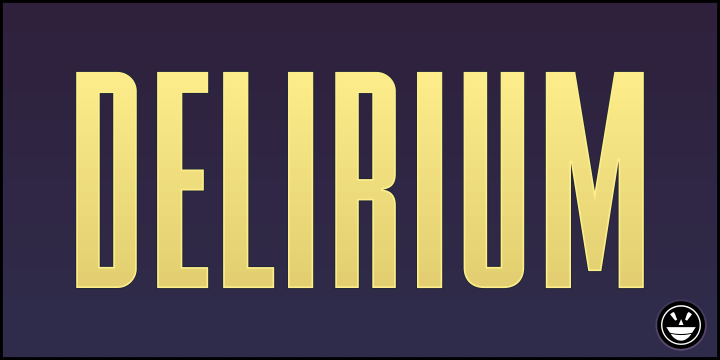
SGT Jhon O is a stencil font is inspired by the military, exuding power and physical strength. If you have a weightlifting or boxing studio, this font will hit the mark with your target audience. I could easily imagine it being a great electrician or woodcutter logo font. But the geometric lettering makes it a crisp, fresh font that will ensure your designs don't feel cluttered or noisy.
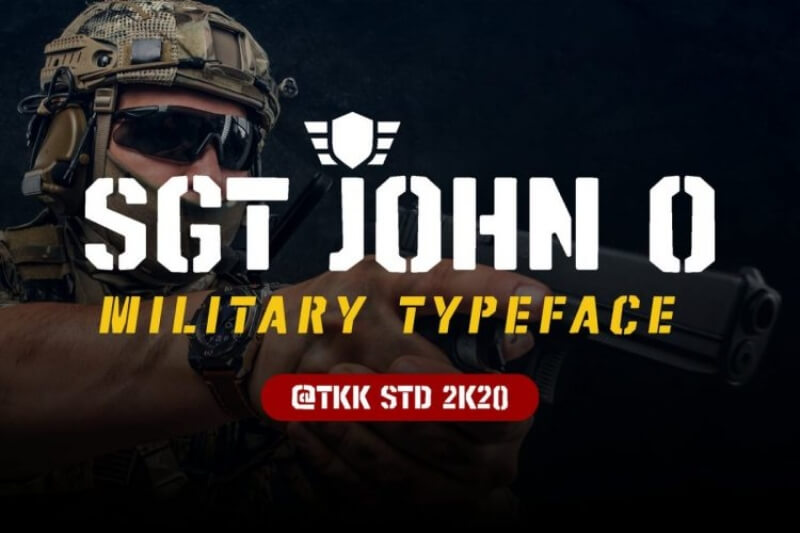
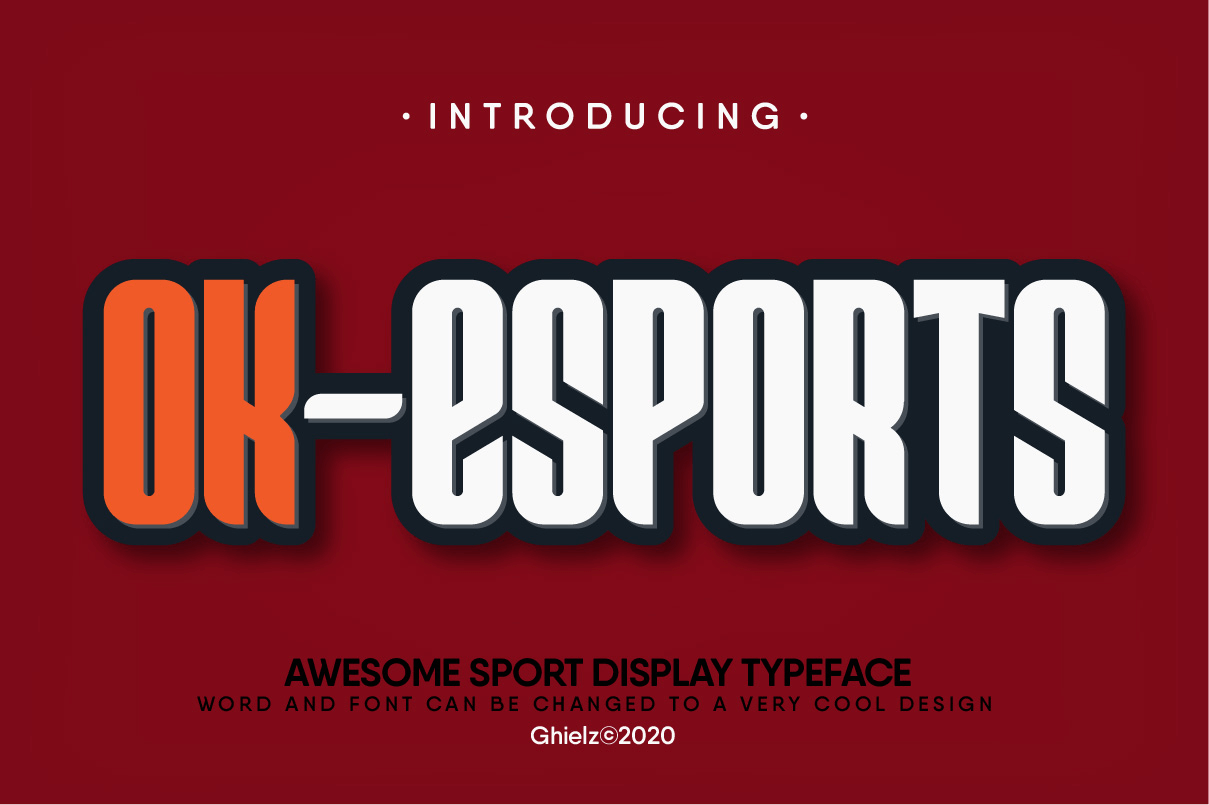
The graphic designer behind this athletic font describes it as "oozing strength and toughness," and we would have to agree. It's a very bold statement font, so it might be a worthwhile branding asset even though you'd have to pay for commercial use. An exciting font like Grind would make any print templates, such as gym flyers or business cards, pop.
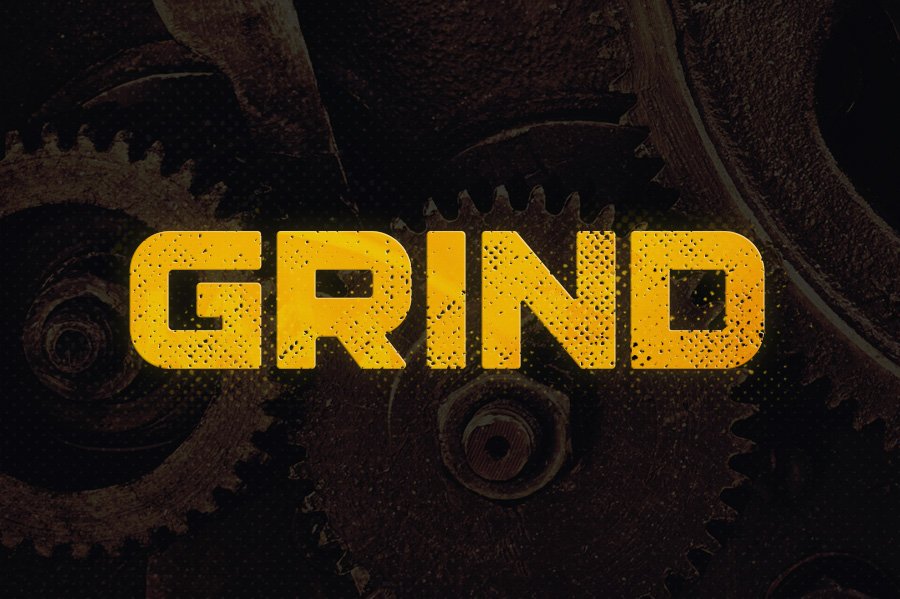
The angular shapes of the lettering make it a great gym font. You have to pay for a commercial license, but you can use Maiden Crimes for free if your gym is part of a charity or nonprofit organization!
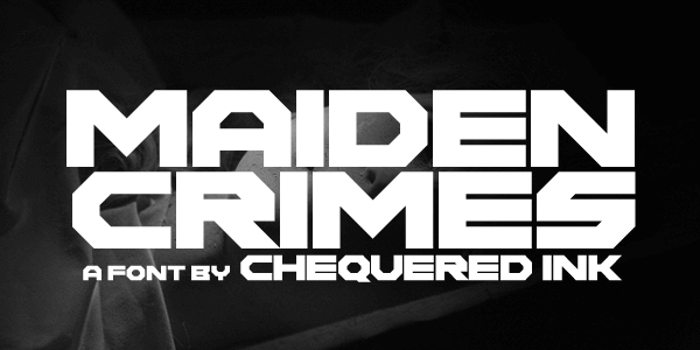
If you ever wondered what font is used for gyms, something similar to this one might have come to mind. Superset is a clean display font that will give any gym a professional edge. It comes in regular and italic styles, so you can use it to create different brand assets.
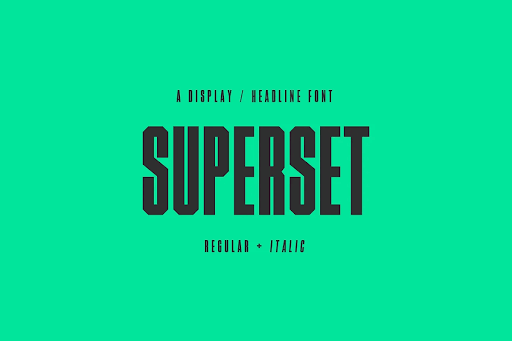
The power of design is that even the smallest detail can transform simple typography into something truly original. The diagonal cuts across the minimalist serif lettering infuse this font with a sense of movement. Facon would make a stunning gym logo font and a great asset to have for signage and gym merch.
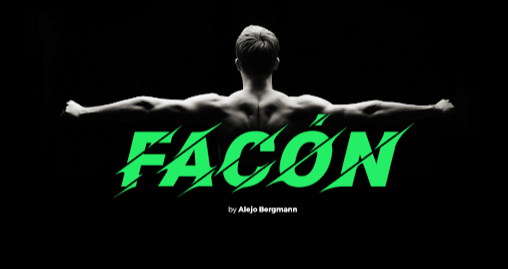
Serifs and slab serifs
Serif fonts are most commonly found in traditional varsity fonts and athletic logos in the fitness and sports industry. Of course, this more traditional font family has heaps of creative, contemporary athletics fonts, so explore this section for plenty of options!
It goes without saying that this font would make an ideal choice for a campus gym. Still, it would give almost any gym that fancy, varsity vibe that even someone out of college might appreciate. If you've got branded merch for your gym, Freshman could be a great choice.
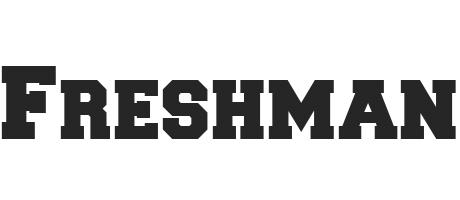
Another fun font that will take you straight to the sports court. National Champion is available for purchase from Creative Market and supports several Latin alphabet languages. This slab serif comes in four different weights and twelve styles. If you like the way it feels, it's worth paying a little extra for this useful typography bundle.
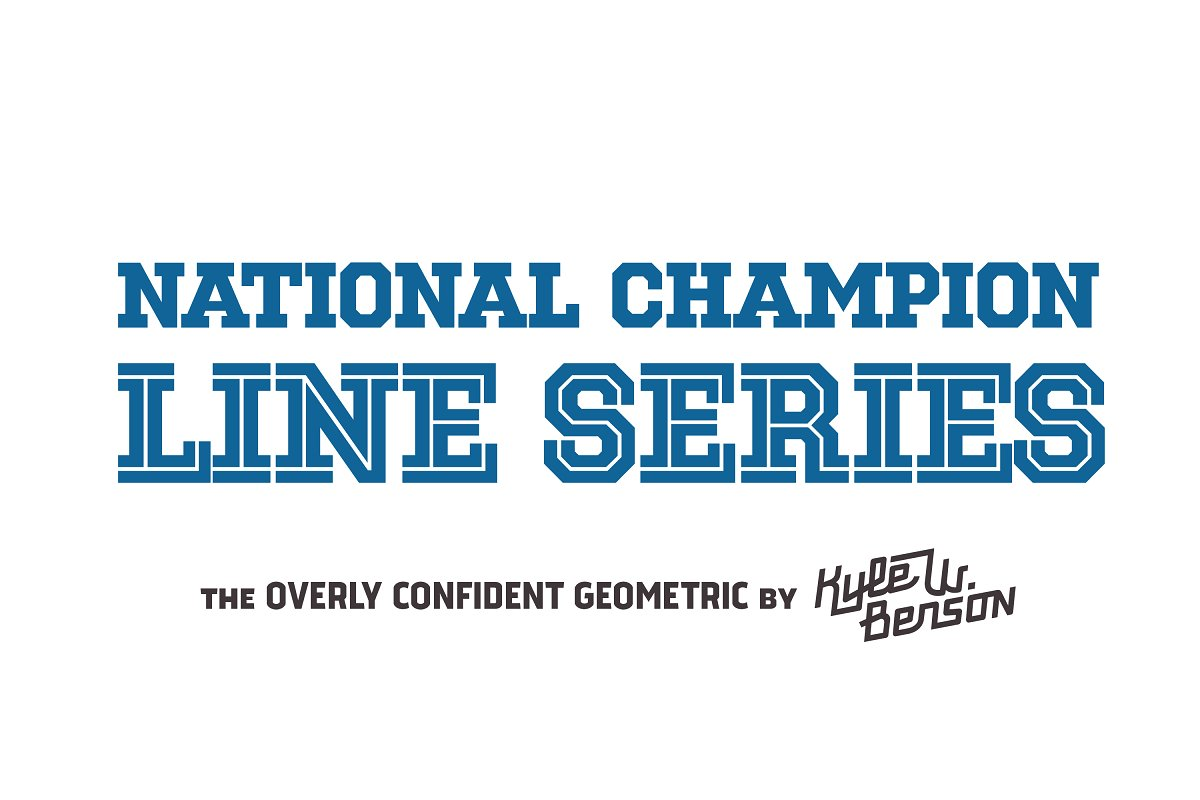
10. Promesh (free)
We mention this sporty font in our list of yearbook fonts. Still, since it has a definitive athletic quality, it would also make a pretty awesome gym typeface. It comes in three styles, with 78 basic glyphs, and it's free for personal and commercial use.
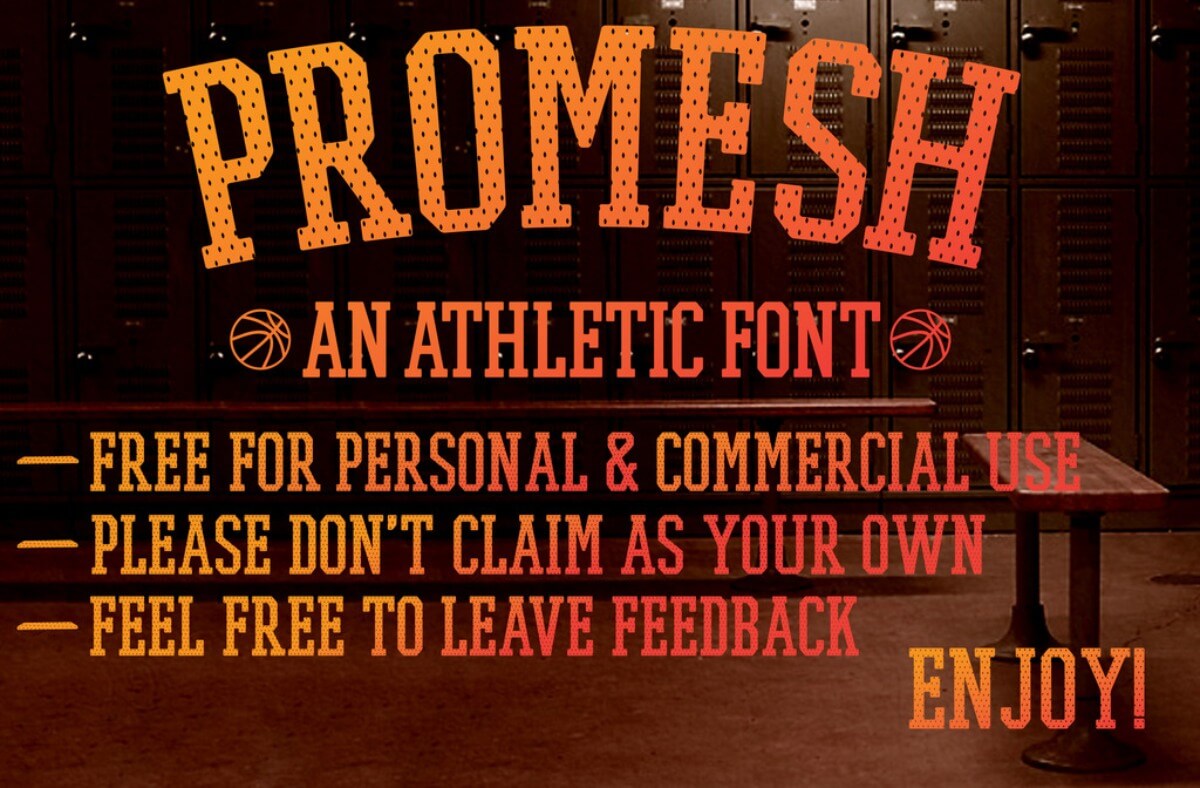
11. Jersey Letters (free)
As the name suggests, this font looks like it belongs on a varsity jacket. It's got a definitive old-school style, so if you opt for this free gym font, make sure that your target audience will appreciate this nostalgic aesthetic.
12. Denton font family (from $56)
Looking for a perfect font for a gym can get overwhelming pretty quickly. If this happens, a great strategy is to find a simple and versatile font family that you can use for creating different branding and marketing assets.
Denton is a solid choice, with its timeless and crisp serif lettering. It blends a sense of professionalism and a more elegant, classic look. It comes in 14 different variable styles, which can be purchased separately, starting from $56.